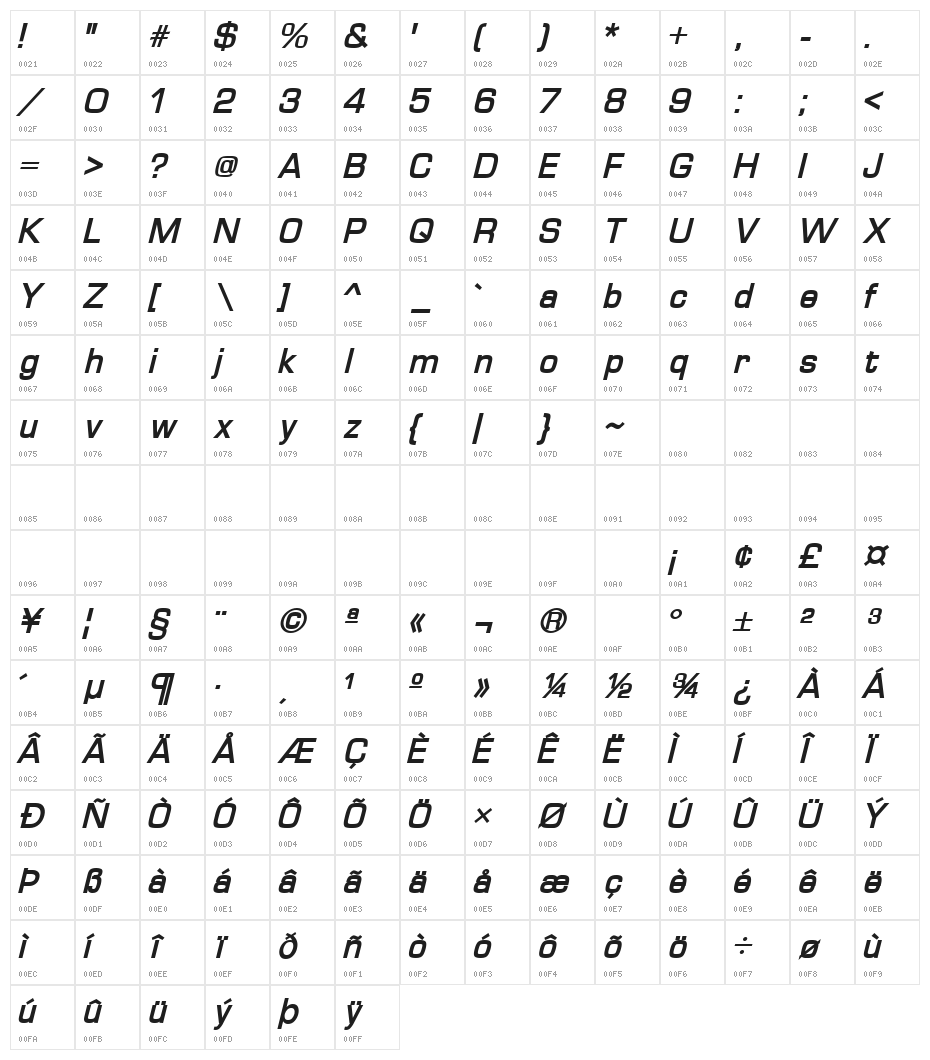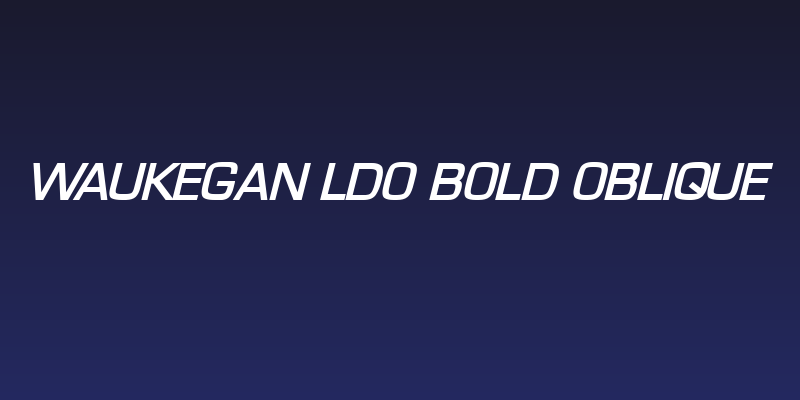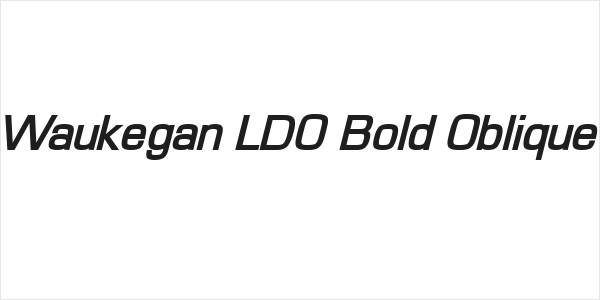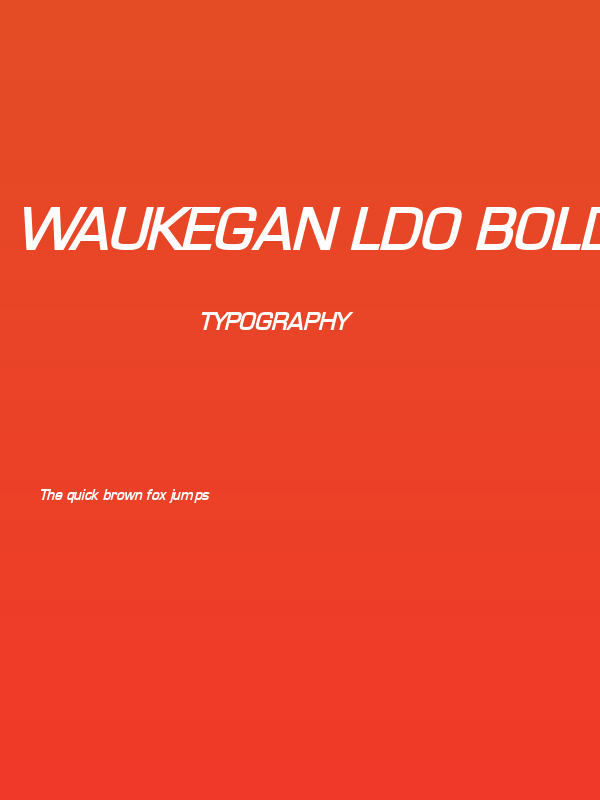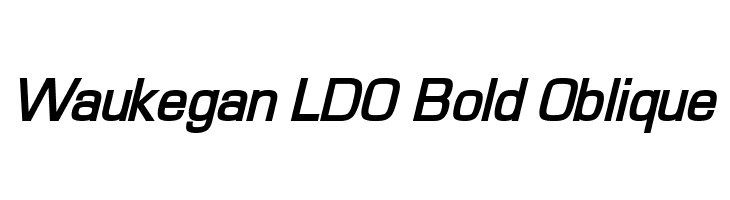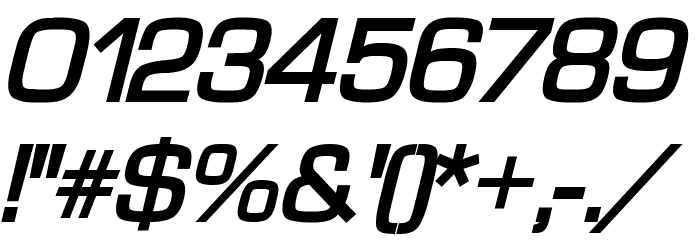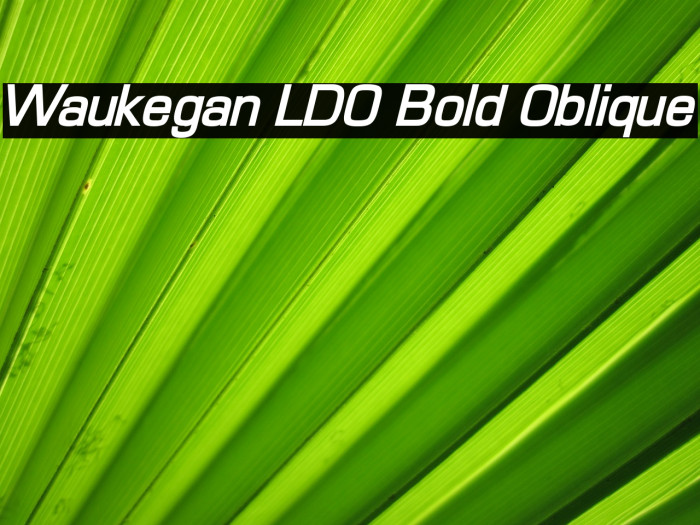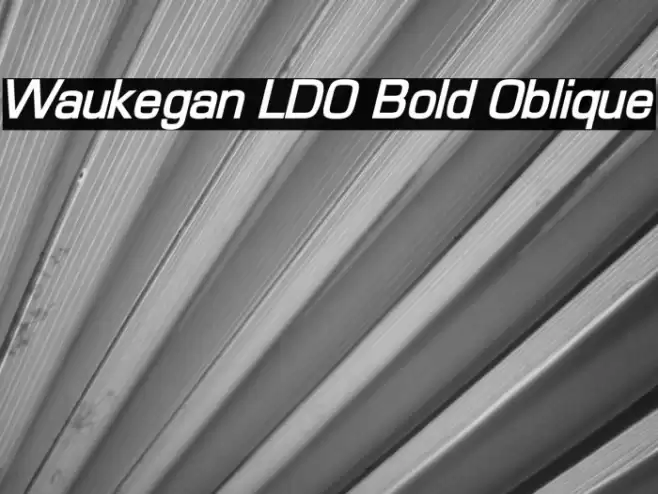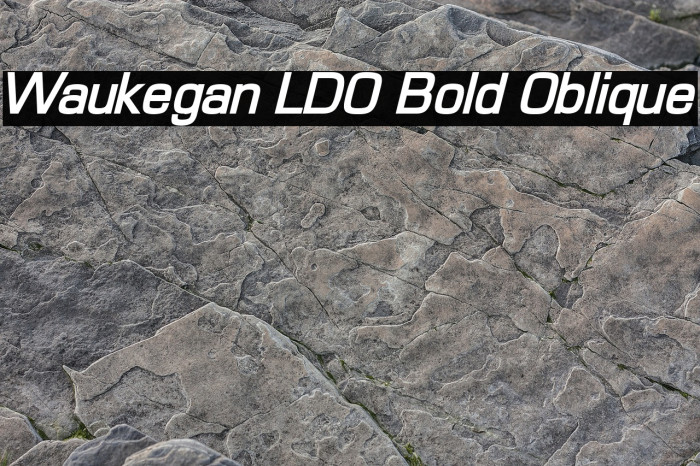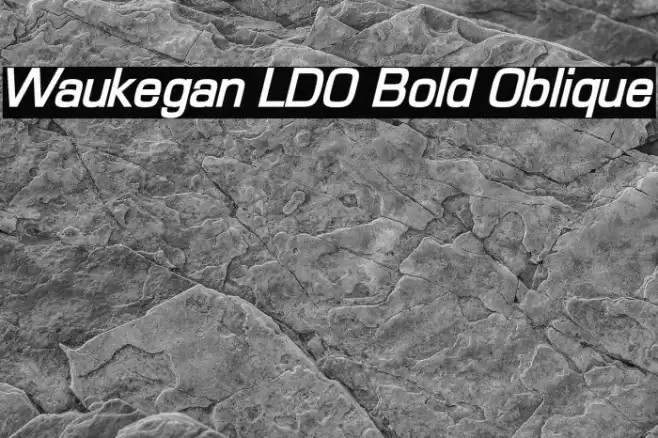
Waukegan LDO Bold Oblique Font
Waukegan LDO Bold Oblique Description
This font exhibits a bold and oblique style, characterized by its strong, slanted letterforms that convey a sense of dynamism and modernity. The uppercase and lowercase letters maintain a consistent slant, enhancing the italicized effect. The numerals and special characters follow the same oblique pattern, ensuring uniformity across all glyphs. The strokes are thick, providing a bold appearance, yet the overall design remains sleek and streamlined. The spacing between characters is tight, which contributes to its compact and cohesive look. This font is ideal for making a strong visual impact while maintaining readability.
| Use Case | Headlines, Logos, Branding |
| Proposed Projects | Ideal for branding, advertising, headlines, and any project requiring a strong, modern aesthetic. |